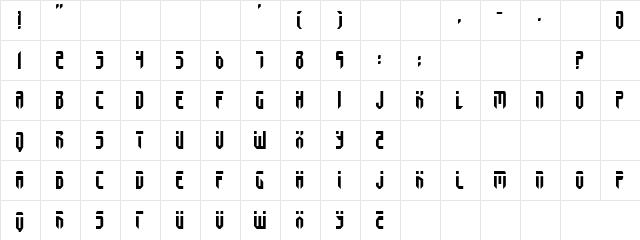
Hydro Electric Regular
Design Context for Hydro Electric Typeface
Hydro Electric has a distinctly futuristic character, with geometric precision and clean angles that feel at home in technology, gaming, and sci-fi contexts.